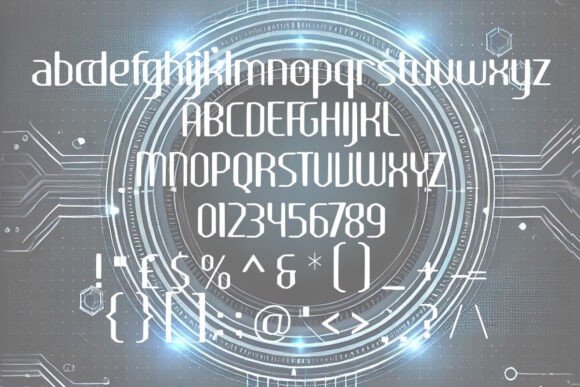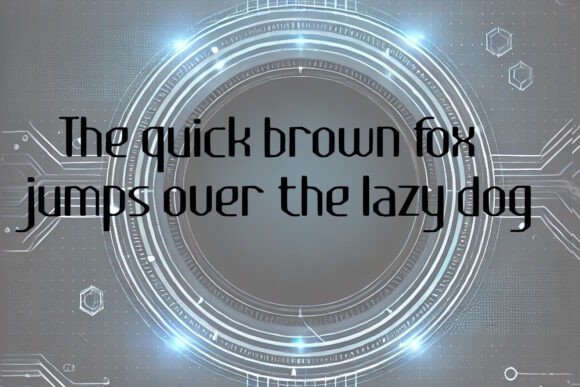
Introducing Byte Me Font: The Ultimate Choice for Modern Designs
Step into the future with Byte Me, a sleek and modern font with a touch of tech-inspired flair. Its clean, geometric lines and minimalist style make it perfect for contemporary designs that demand attention. Whether you’re creating futuristic branding or digital graphics, Byte Me brings an edgy, tech-savvy vibe to your projects.
The Design Philosophy Behind Byte Me
Byte Me font is the result of a meticulous design process aimed at capturing the essence of modern technology and translating it into a typographic form. The creators of Byte Me sought to develop a font that not only reflects the sleekness and efficiency of digital technology but also embodies the forward-thinking spirit of the tech industry.
The design philosophy behind Byte Me is centered around simplicity, legibility, and versatility. The font features clean lines, geometric shapes, and a minimalist aesthetic that makes it highly versatile for various design applications. From digital interfaces to print materials, Byte Me is engineered to perform exceptionally well across different mediums.
Key Features of Byte Me Font
- Clean and Geometric Lines: Byte Me’s design is characterized by its precise lines and geometric shapes, giving it a futuristic and tech-savvy look.
- Minimalist Style: The font’s minimalist approach ensures that it remains uncluttered and highly legible, even at smaller sizes.
- Versatility: Byte Me is designed to be versatile, making it suitable for a wide range of design projects, from branding and advertising to digital graphics and web design.
- Tech-Inspired Flair: The font incorporates subtle tech-inspired elements that give it a unique edge, perfect for projects that require a modern and innovative feel.
Use Cases for Byte Me Font
Byte Me font is ideal for designers and crafters looking to infuse their projects with a modern and tech-savvy aesthetic. Here are some use cases where Byte Me truly shines:
- Futuristic Branding: Use Byte Me to create logos and brand identities that convey innovation and forward-thinking.
- Digital Graphics: Enhance your digital graphics, such as social media assets, website headers, and digital advertisements, with Byte Me’s sleek and modern typography.
- Web Design: Byte Me is perfect for web design projects that require a clean and contemporary look. Its legibility ensures a great user experience.
- Print Materials: From brochures and flyers to posters and business cards, Byte Me can add a touch of modern sophistication to your print materials.
Byte Me font is a powerful tool for designers and crafters looking to create modern, tech-savvy designs. Its clean lines, geometric shapes, and minimalist style make it perfect for a wide range of applications, from futuristic branding to digital graphics. By incorporating Byte Me into your projects, you can ensure that your designs are not only visually appealing but also aligned with the latest design trends.
So, step into the future with Byte Me and elevate your designs to new heights. Explore the possibilities and let your creativity shine with this versatile and modern font.